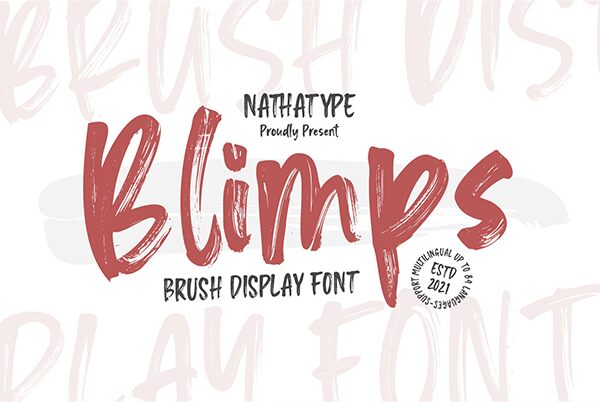
Blimps font is a bold brush typeface designed by Din Studio.
Blimps is a fantastic font. A display font that is combined with handcrafted script brush font. Designed primarily as a captivating font to add the right amount of modernity and style. This font is an excellent choice to ensure a great font match for your designs and projects! Well suited to titles, poster designs, branding, logos, and many more.